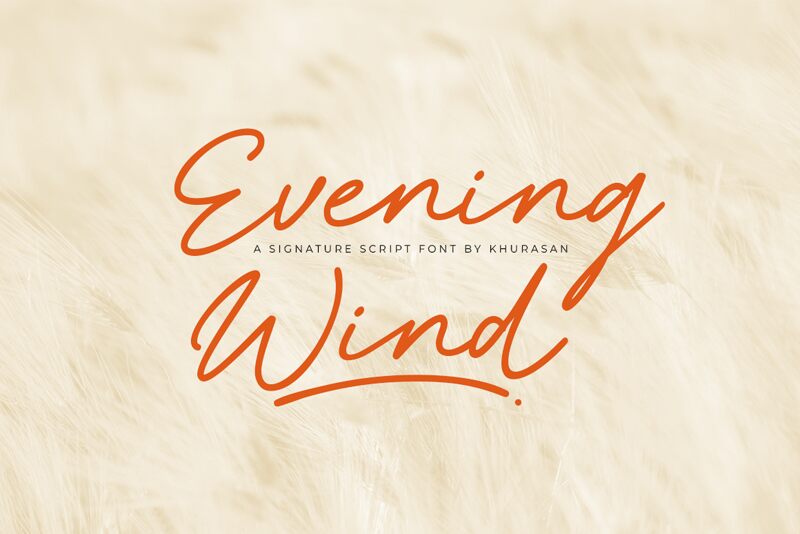
Evening Wind
Evening Wind, a beautiful handwritten font by Khurasan, brings a touch of elegance to any project. With its light weight and semi-expanded width, it exudes a casual and feminine charm.
Ideal for creative endeavors such as wedding invitations, fashion blogs, and lifestyle magazines, this font adds a graceful and personal touch to any design. Whether you're aiming for an ethereal wedding aesthetic or a whimsical fashion-forward vibe, Evening Wind is the perfect choice to elevate your projects with its delicate strokes and graceful curves.